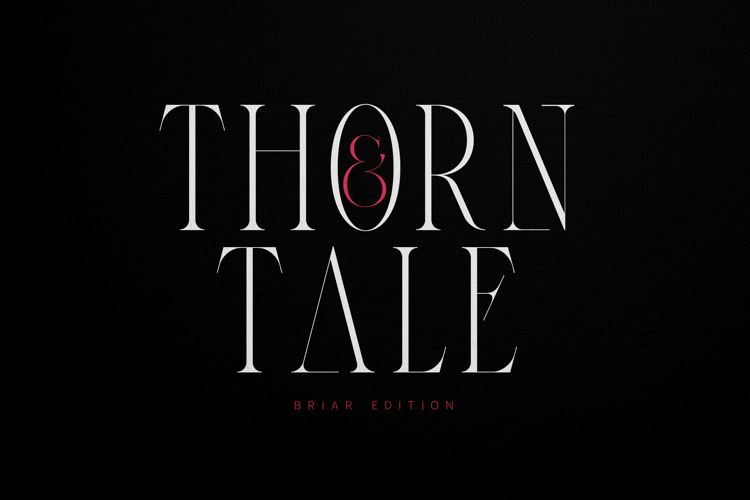
Thorn Tale Elegant Modern Serif Display Font
Thorn Tale is an elegant modern serif typeface designed to bring sophistication, contrast, and refined beauty to contemporary design projects.
The font features sharp serif details, tall proportions, and delicate high-contrast strokes that create a luxurious and expressive typographic style. Thorn Tale blends classic serif elegance with a modern editorial aesthetic, making it perfect for premium branding and stylish typography.
With its graceful letterforms and dramatic presence, Thorn Tale performs beautifully in large headlines, branding compositions, editorial layouts, and fashion design.
The typeface includes uppercase and lowercase characters, numerals, punctuation, and extended multilingual support, allowing it to be used in a wide range of international projects.
Perfect for• Luxury branding
• Editorial and magazine design
• Fashion and beauty branding
• Logo design
• Posters and headlines
• Packaging design
• Wedding invitations
• Social media graphics